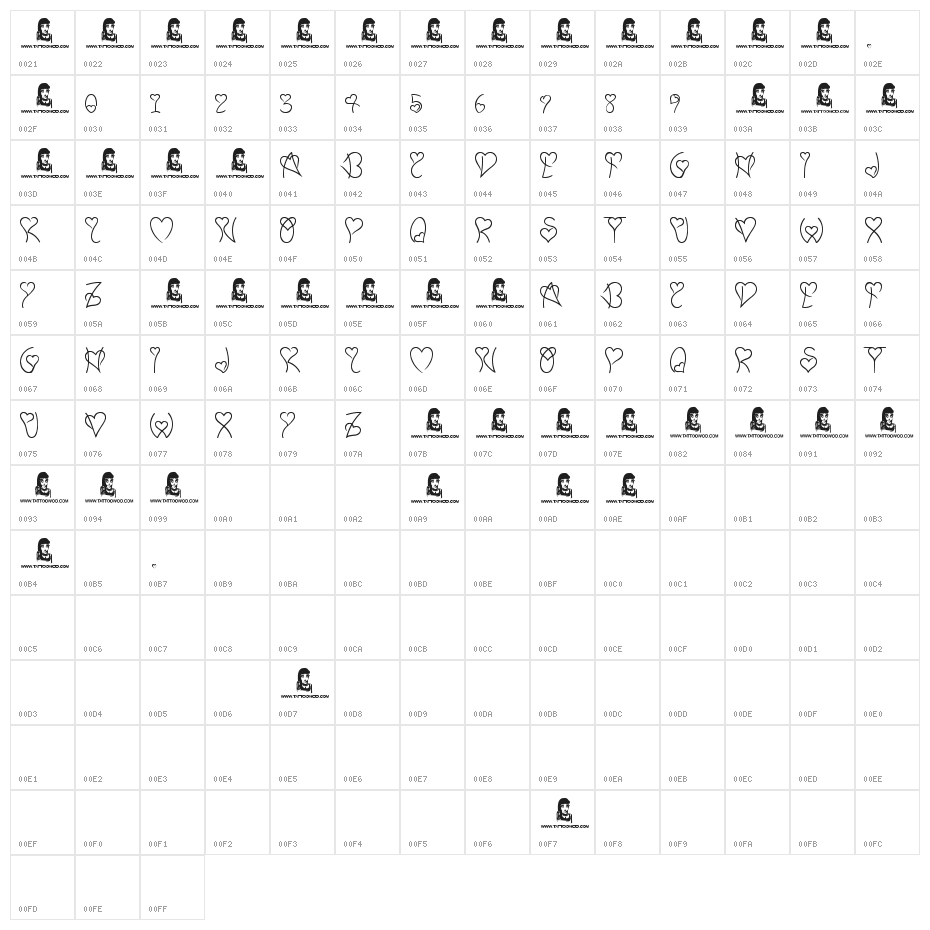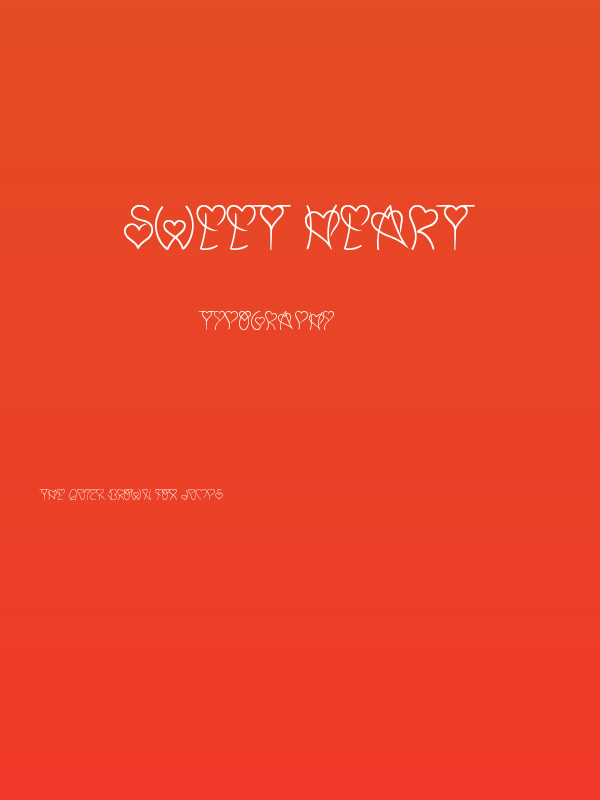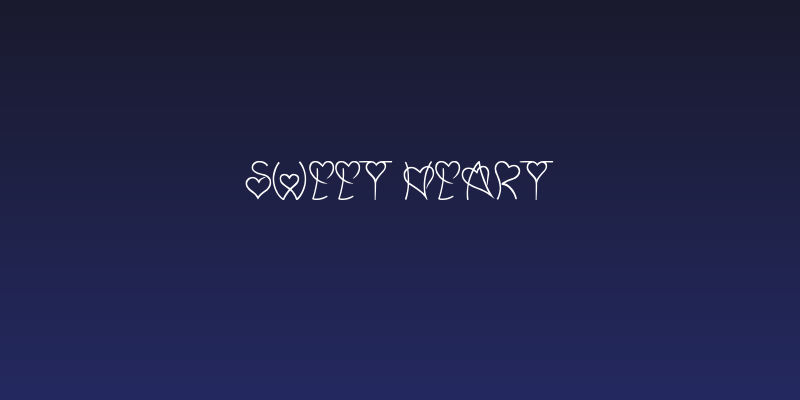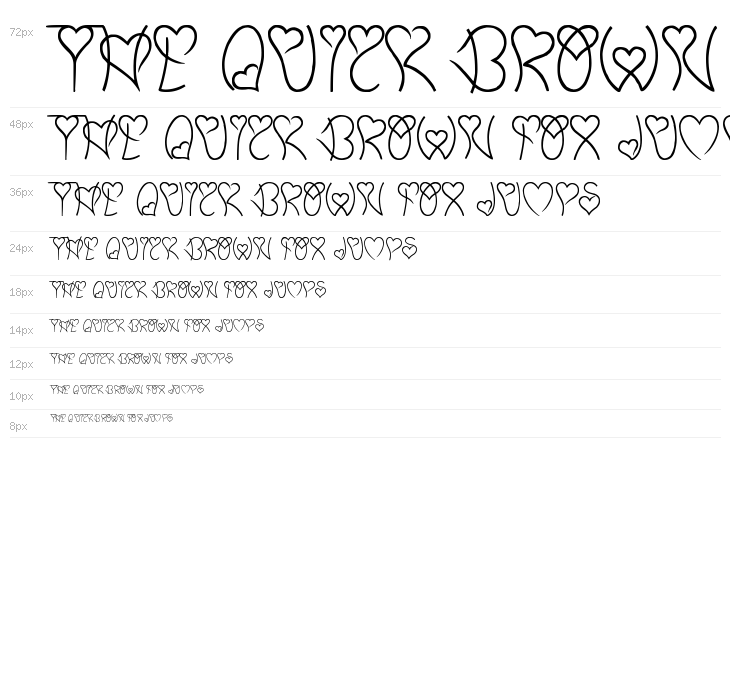
Sweet Heart Font
Sweet Heart Description
This font features a playful and romantic design, incorporating heart shapes into the structure of each letter and number. The characters are crafted with a whimsical flair, making them ideal for projects that require a touch of love and creativity. The strokes are smooth and flowing, with a consistent line weight that adds to the font's charm. The heart motifs are cleverly integrated, ensuring readability while maintaining a decorative appeal. This font is perfect for Valentine's Day themes, wedding invitations, or any project that aims to convey affection and warmth.
| Proposed Projects | Ideal for wedding invitations, Valentine's Day cards, love-themed posters, and playful branding. |